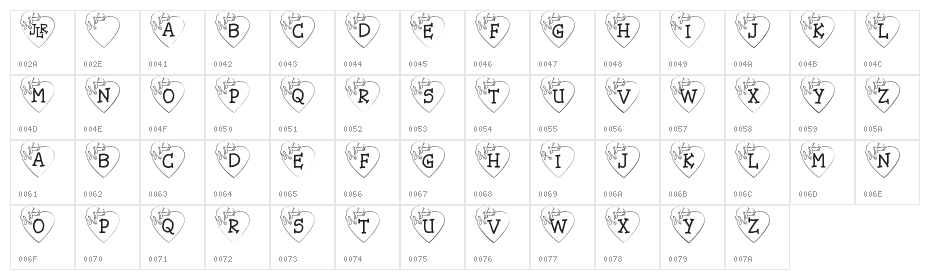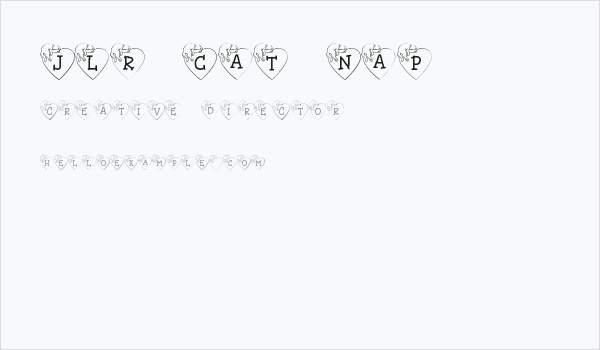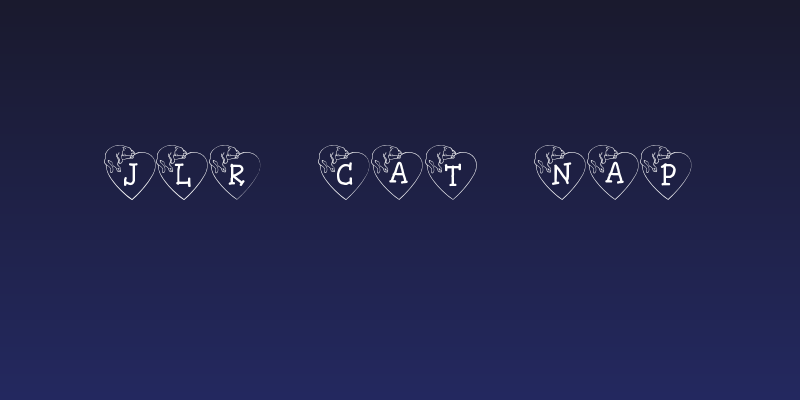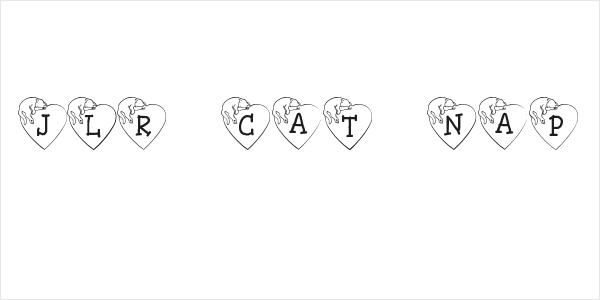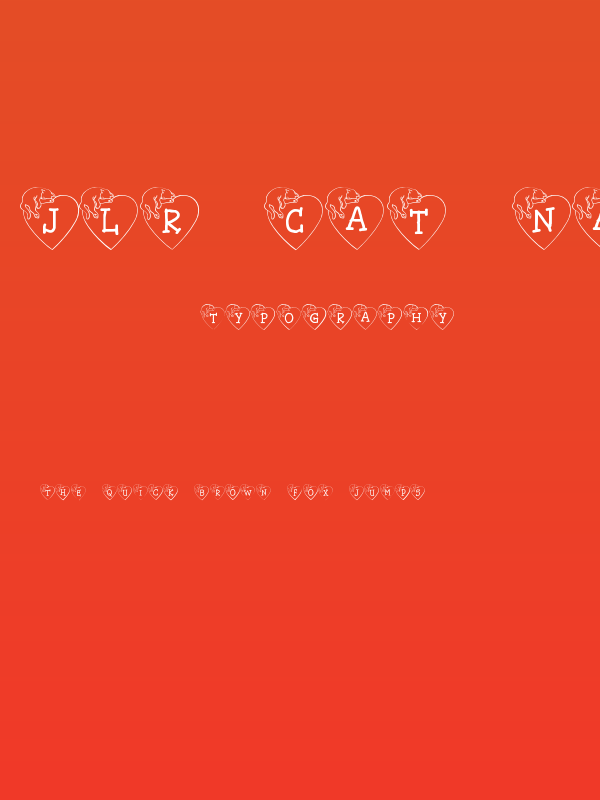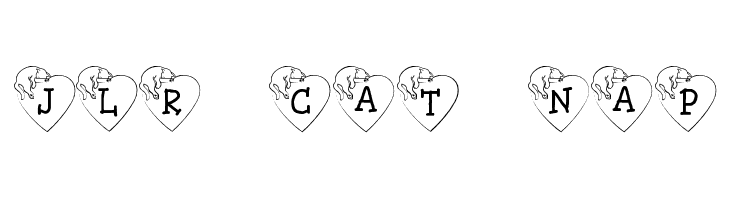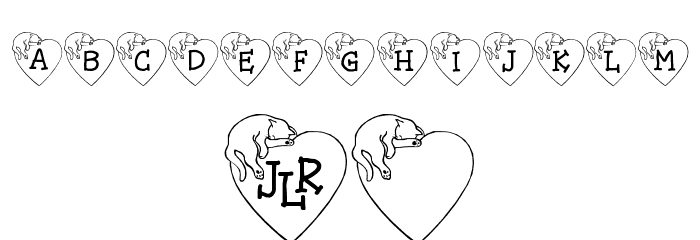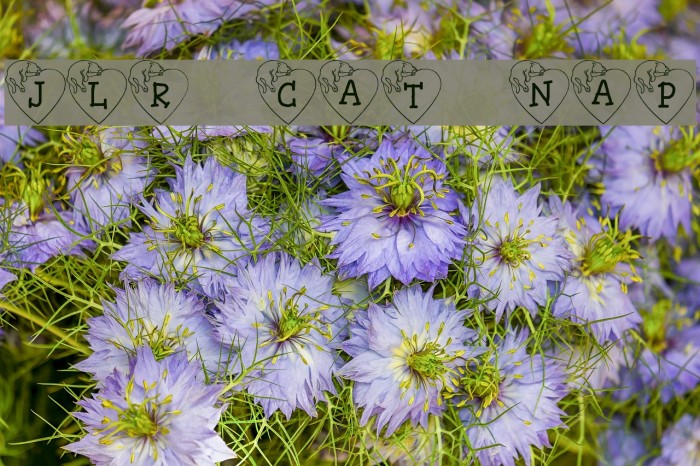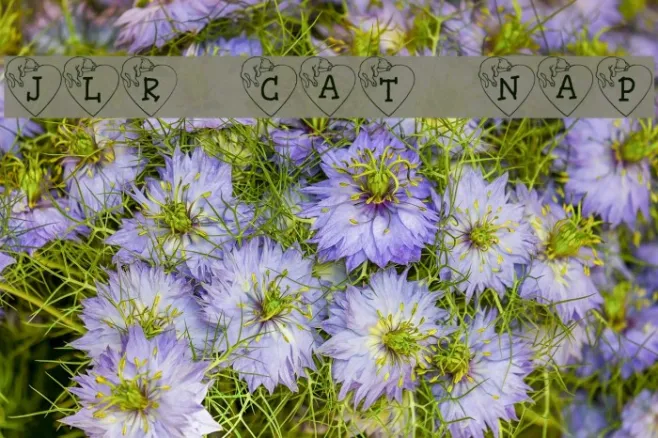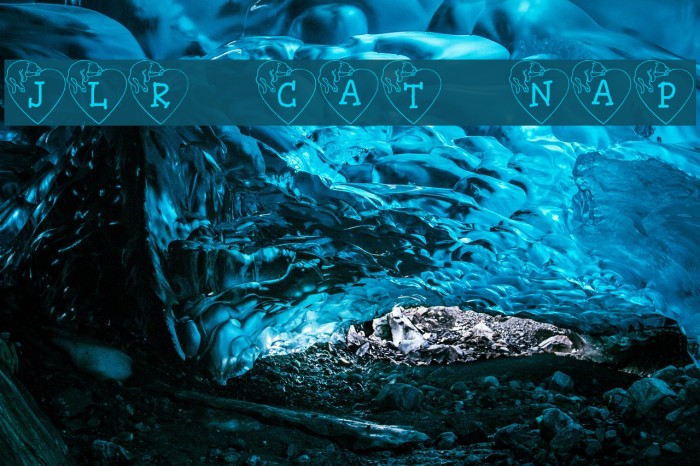
JLR Cat Nap Font
JLR Cat Nap Description
This font features a whimsical and playful design, with each letter encapsulated within a heart shape. A small, stylized cat is depicted sleeping atop each heart, adding a charming and unique touch. The letters themselves are bold and clear, ensuring readability while maintaining the decorative theme. The overall aesthetic is both cute and distinctive, making it ideal for projects that require a touch of personality and warmth. The combination of the heart shape and the sleeping cat motif creates a cozy and inviting feel.
JLR-CAT-NAP UPPERCASE
JLR-CAT-NAP LOWERCASE
JLR-CAT-NAP OTHER CHARS
| Overall Style | Whimsical and playful |
| Use Case | Logos, Decorative text, Children's materials |
| Proposed Projects | Ideal for children's book covers, greeting cards, playful branding, and decorative posters. |